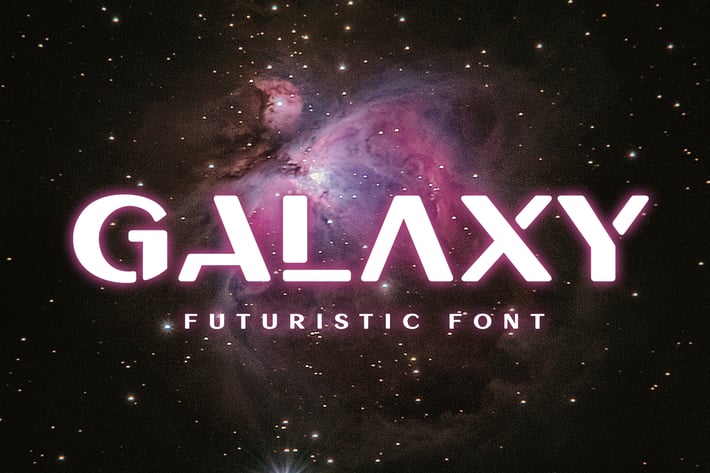
Galaxy Font
galaxy is unique futuristic font, cut in right part, and rounded.
You can use it for logo, scifi poster, film, advertisement, and many others.